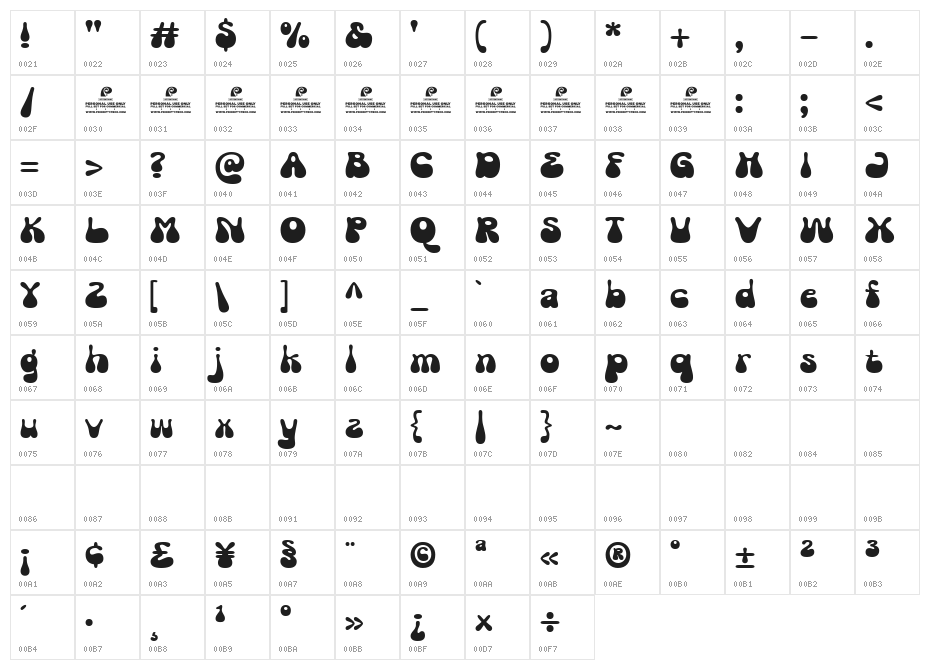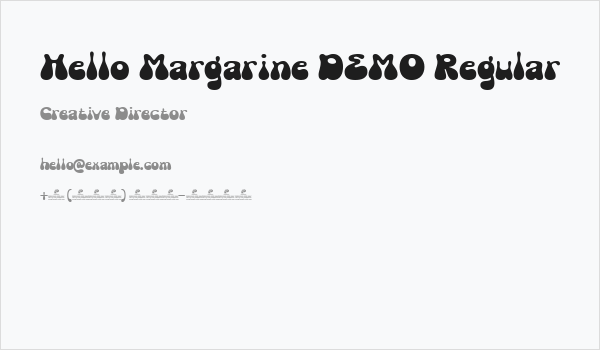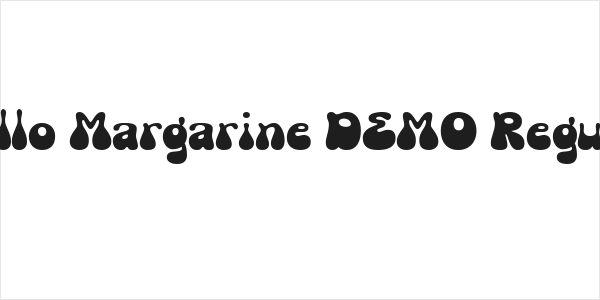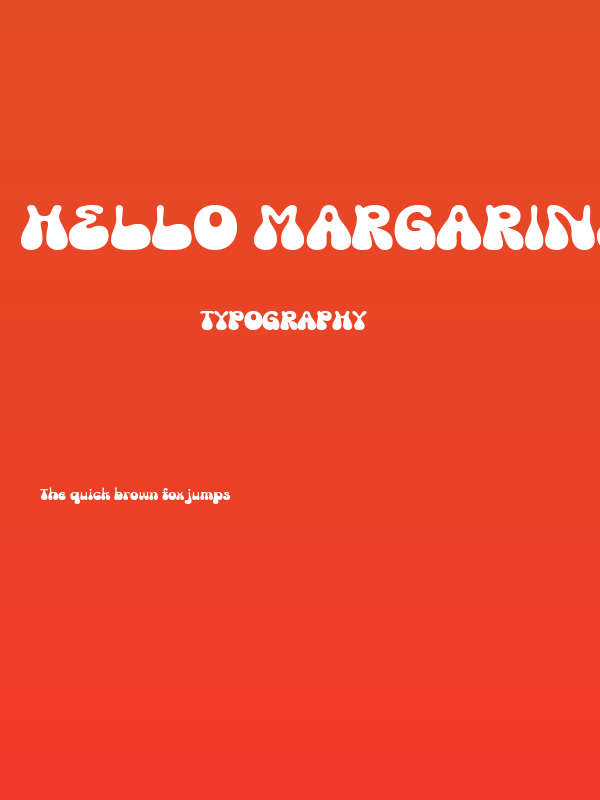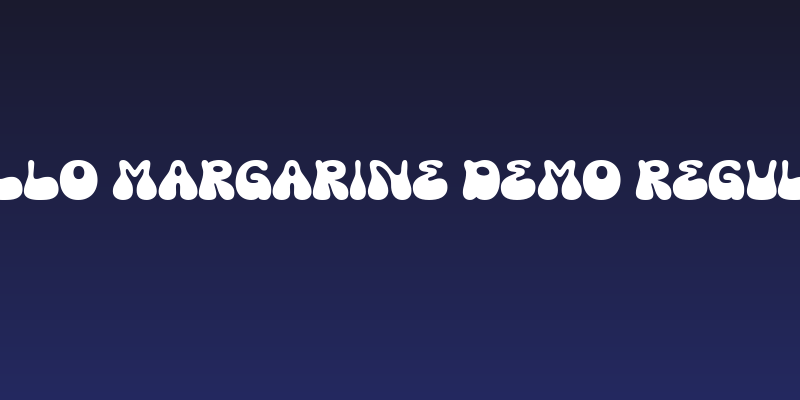
Hello Margarine DEMO Regular Font
Hello Margarine DEMO Regular Description
This font features a playful and bold design with rounded, bubble-like characters that give it a unique and eye-catching appearance. The letters are thick and have a soft, organic feel, reminiscent of liquid or melted shapes. The overall style is whimsical and fun, making it ideal for creative and informal projects. The font includes a full set of uppercase and lowercase letters, numbers, and a variety of special characters, all maintaining the same bubbly aesthetic. Its distinct style makes it stand out, perfect for capturing attention in any design.
| Overall Style | Whimsical |